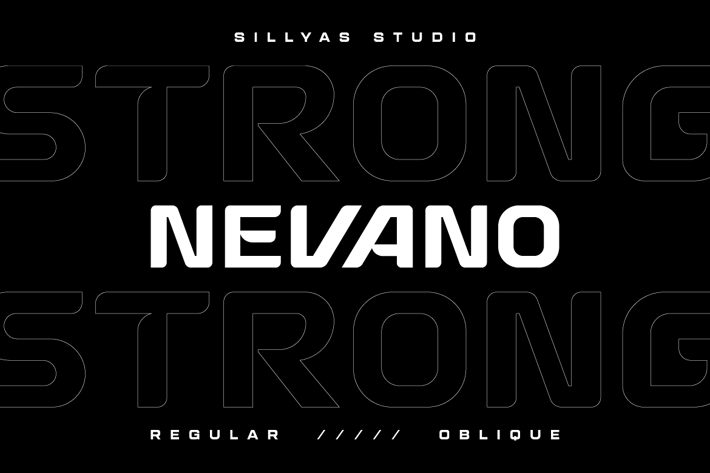
Nevano Futuristic Display Font
Nevano is a Bold Futuristic Display Font with Sleek, Modern Letterforms.
Perfect for Tech Branding, Sci-fi Designs, Gaming, and Digital Projects,
it brings a cutting-edge, high-tech aesthetic.
- Uppercase & Lowercase Letters
- Punctuation & Symbols Support
- PUA encoded Range Standard Alternative Style
- Ligature (Standard and Discretionary)